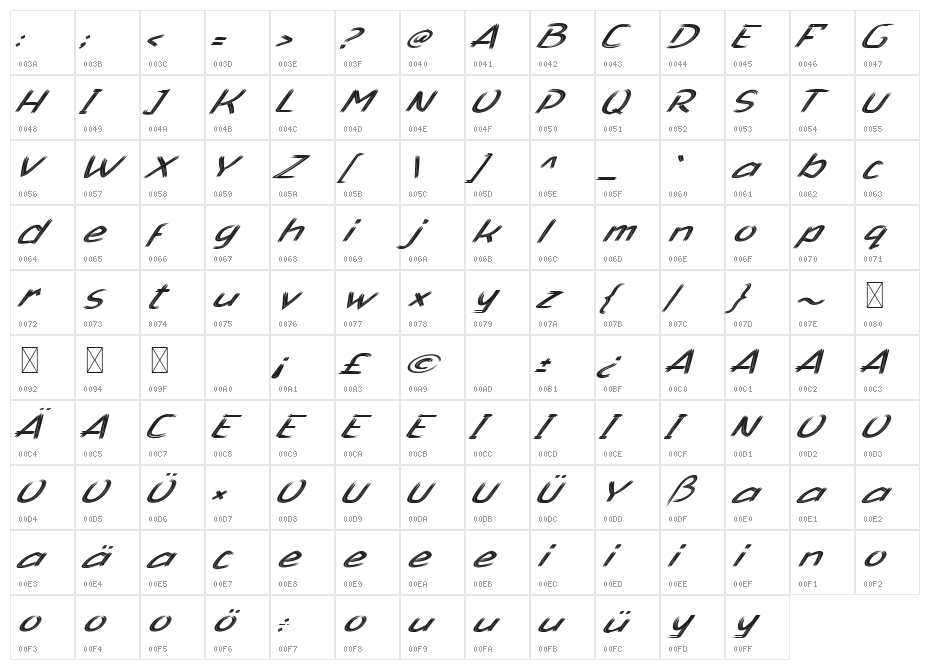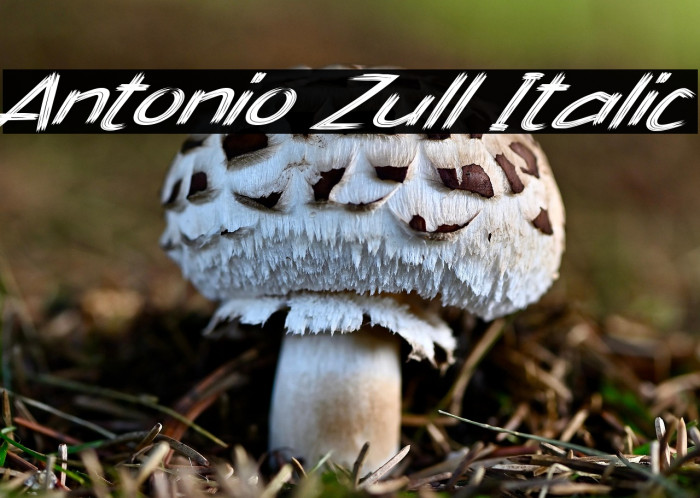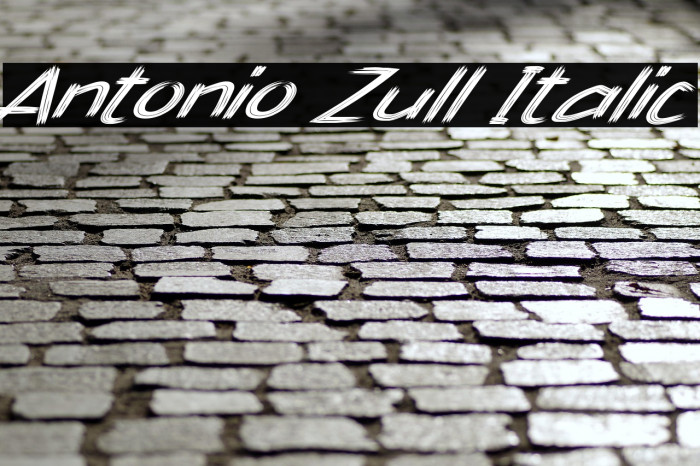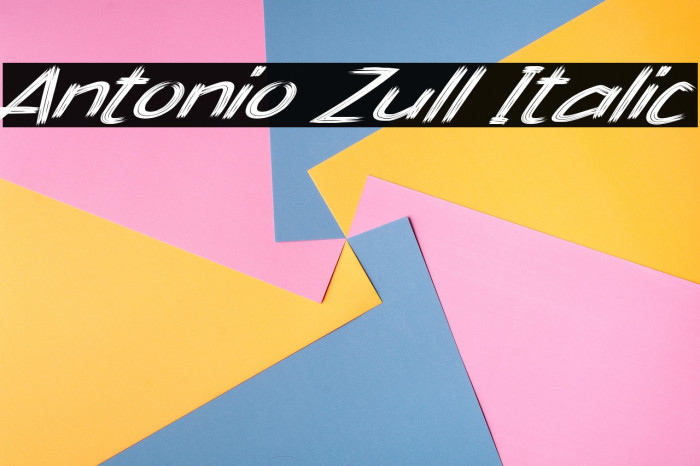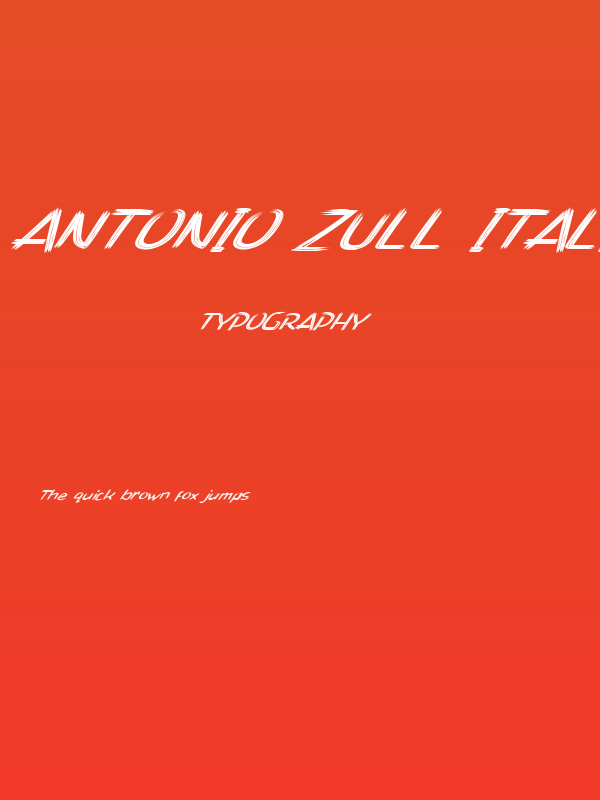
Antonio Zull Italic Font
Antonio Zull Italic Description
This font features a dynamic and energetic style with a brush-like appearance. The strokes are bold and expressive, giving each character a sense of movement and flair. The italic slant enhances its fluidity, making it ideal for creative and artistic projects. The uppercase and lowercase letters maintain a consistent style, with sharp angles and varying stroke widths that add to its dramatic effect. The numbers and special characters are equally stylized, ensuring a cohesive look across all text elements.
Overall StyleModern, Artistic
Proposed ProjectsIdeal for branding, posters, album covers, and any project requiring a bold, artistic touch.